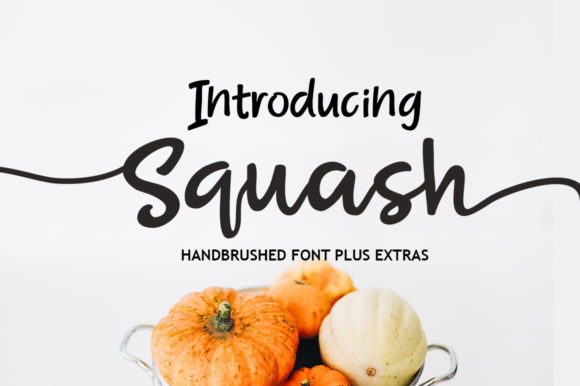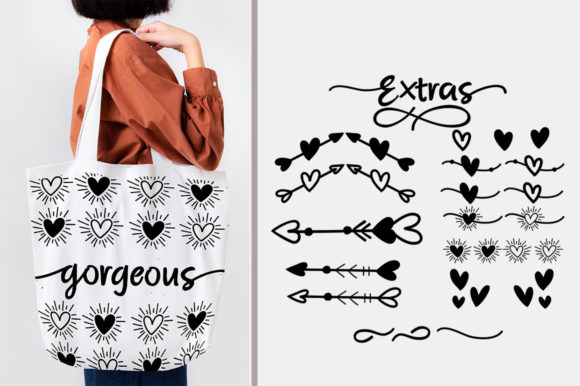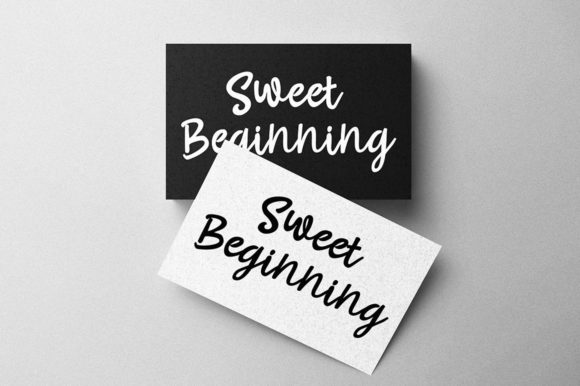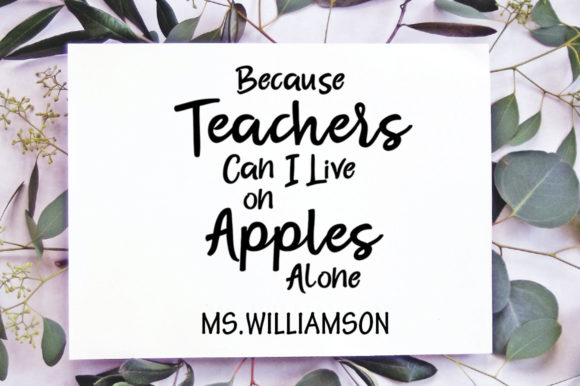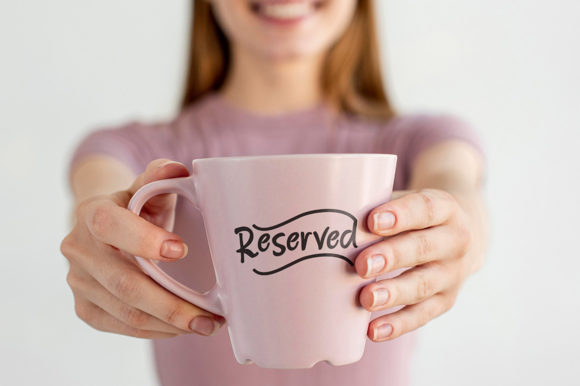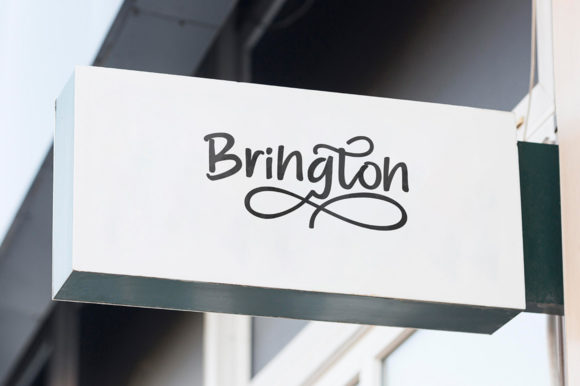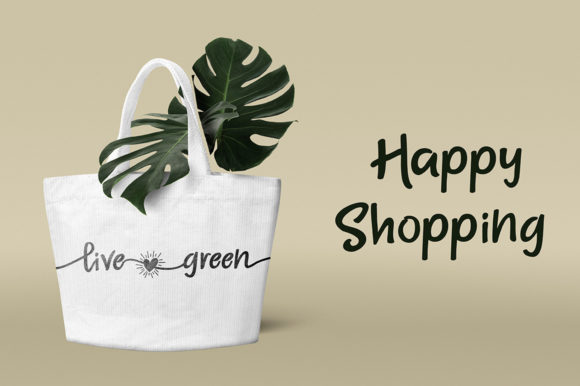
Squash Script Font
About Squash Script Font
Squash Script is a sweet and delicate handwritten font. This font is PUA encoded which means you can access all of the glyphs and swashes with ease!